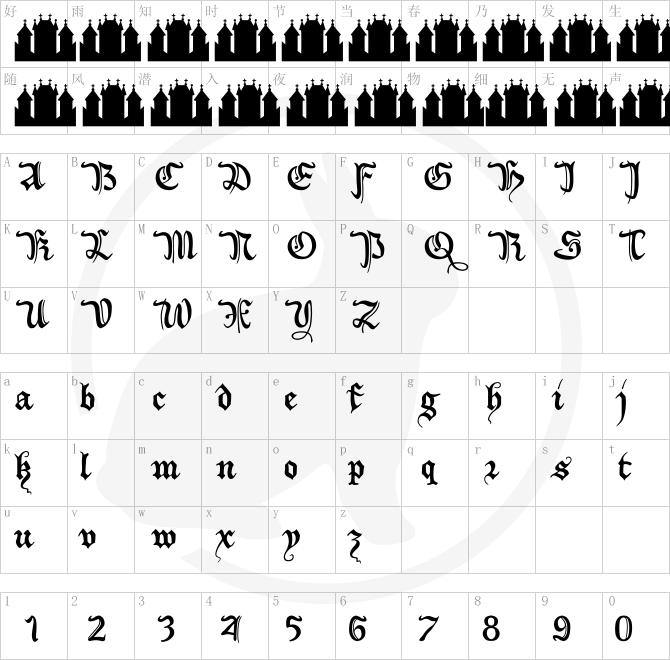
XiBeronne-copy-1-.ttf is a very beautiful artistic font, XiBeronne-copy-1-.ttf is widely used in the design and printing of various books and pictures,XiBeronne-copy-1-.ttf has a strong visual impact,XiBeronne-copy-1-.ttf is a commonly used font in newspapers, magazines and books, and is used in posters, e-commerce Poster design, store design, logo design, font design and other fields.XiBeronne-copy-1-.